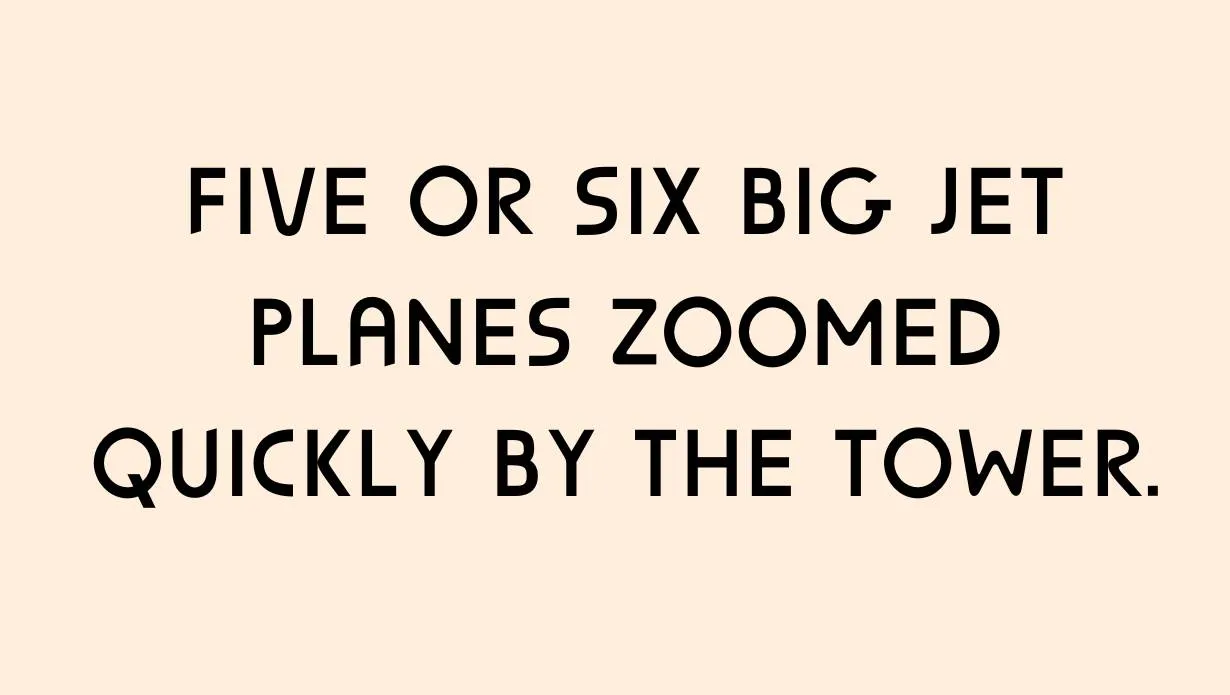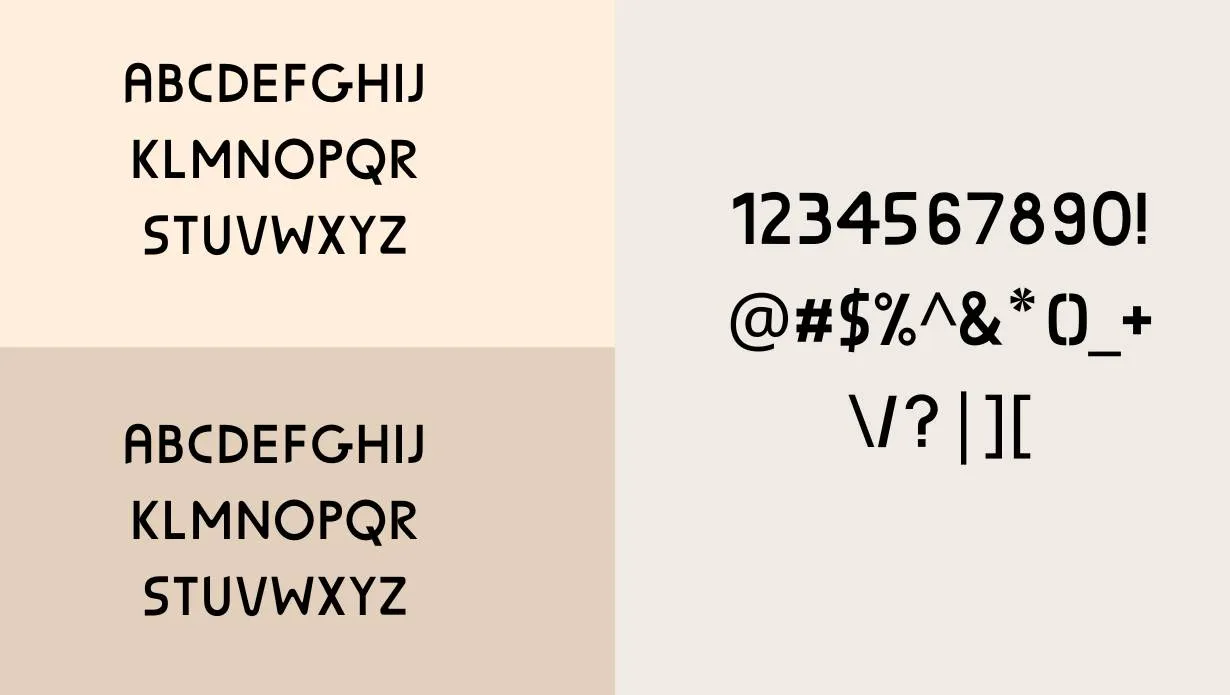
Sunscreen font was designed by Simon Cozens. This amazing fancy font is available in five different weights such as Pentaline, Unscreened, Triline, Triline Equal, and Setaline.
Sunscreen Font Family